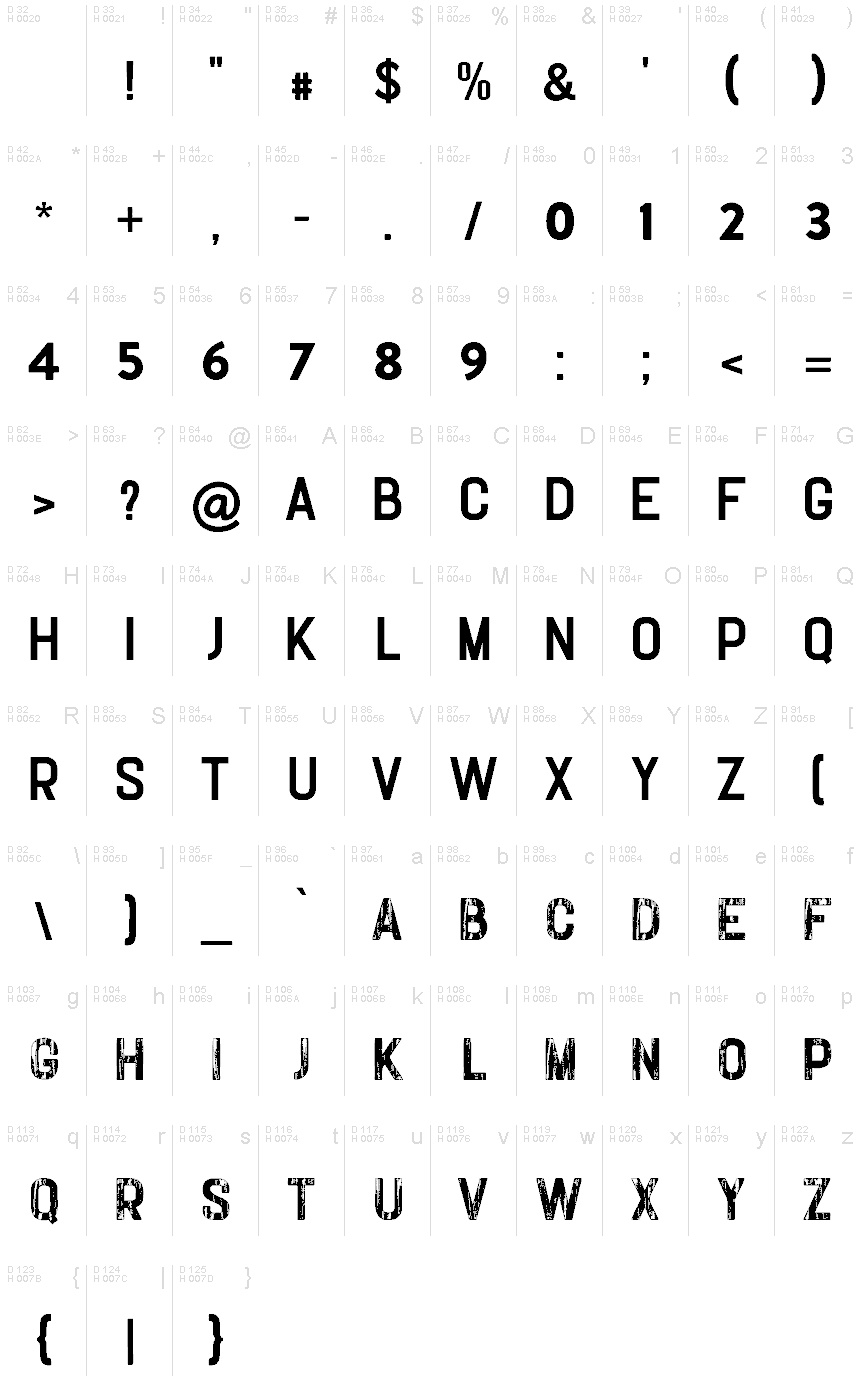
brushmaker Regular
Brushmaker font by UI Creative is a rough, distressed, industrial-looking display font that brings out the rough side of every project. The beautiful imperfect look finds a source in the brush style drawing which mixes narrowed uppercase letterform and painted textures of uneven glyph surfaces.
Use this free grungy condensed font for album covers, book covers, posters, game designs, shirts and merchandise printing and industrial branding. Further uses can be related to street style graphics including graffiti-style murals or wall art.